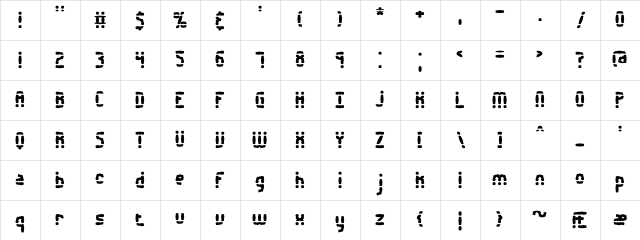
Amalgamate BRK Normal
Design Context for Amalgamate BRK Typeface
Amalgamate BRK is a composed and adaptable typeface that performs quietly and consistently across a wide range of design contexts.